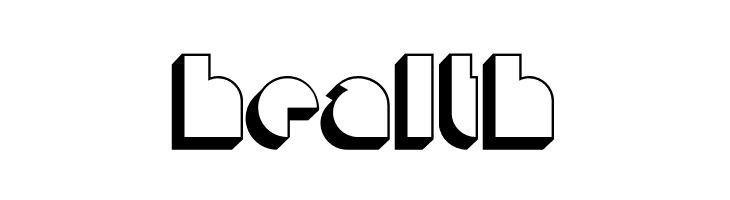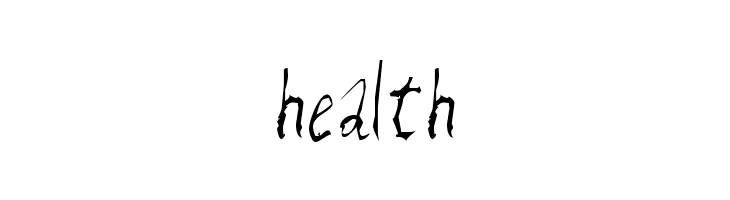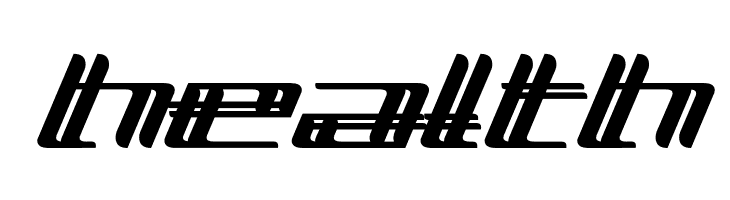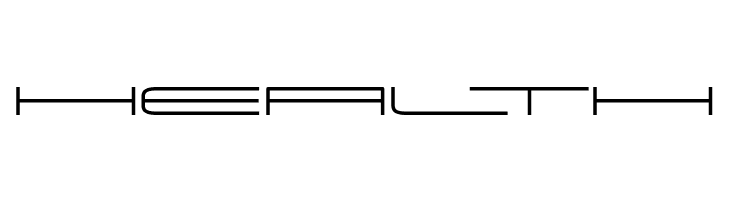
A bold, angular font with a futuristic and geometric design.
A bold, geometric outline font with a modern and edgy style.
A playful and eclectic font with unique designs for each character.
A pixelated, bitmap-style font with a retro digital aesthetic.
An ornate and decorative font with intricate details and flourishes.
A playful, hand-drawn font with bold, rounded letters and a whimsical style.
A bold, geometric font with a futuristic and industrial design.
A festive decorative font featuring characters within holly-adorned bells.
A decorative font with swan motifs and blackletter lowercase, ideal for creative projects.
A bold, distressed font with a grunge, textured appearance.
Hand-drawn decorative banners in black and white.
A bold, arrow-themed font with a geometric and dynamic design.
A futuristic, segmented font with a digital and angular design.
A bold, hand-drawn font with dynamic, brush-like strokes.
A bold, playful font with a hand-drawn, artistic style.
A bold, thorny, and intricate decorative font with a gothic and edgy style.
A playful, circular-themed font with a bubbly and dynamic appearance.
A bold, circular font with playful, enclosed characters.